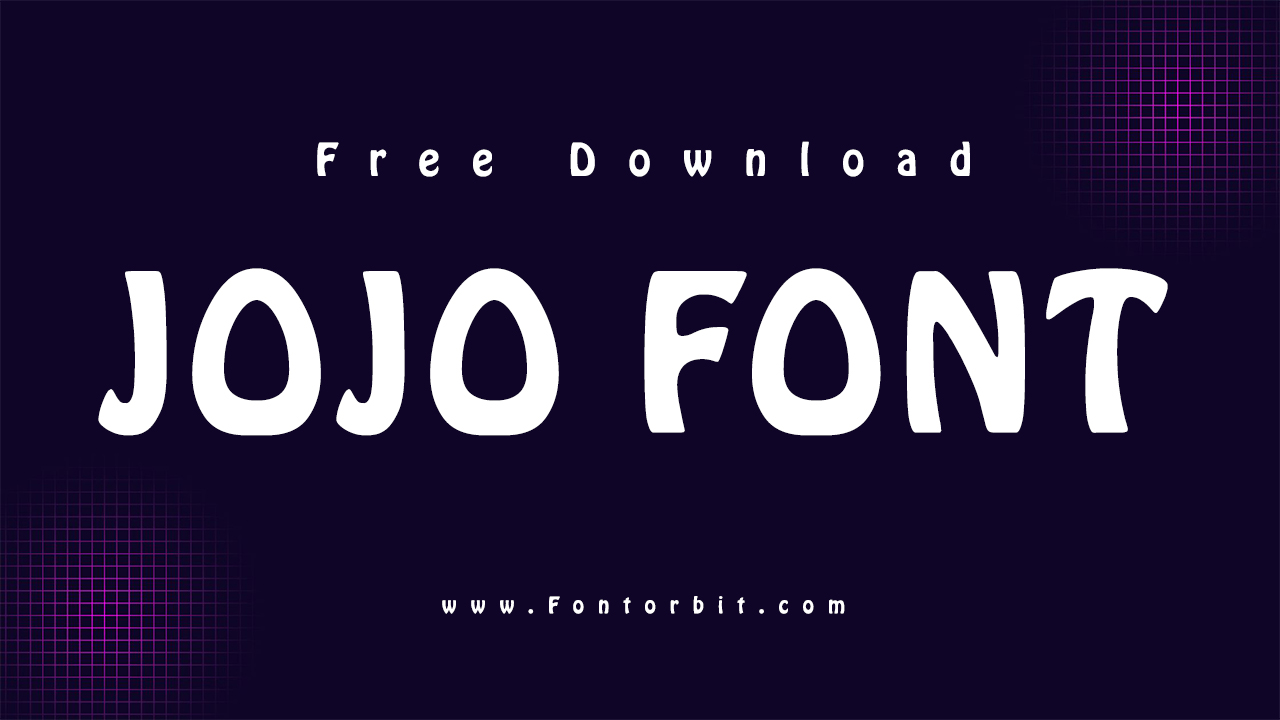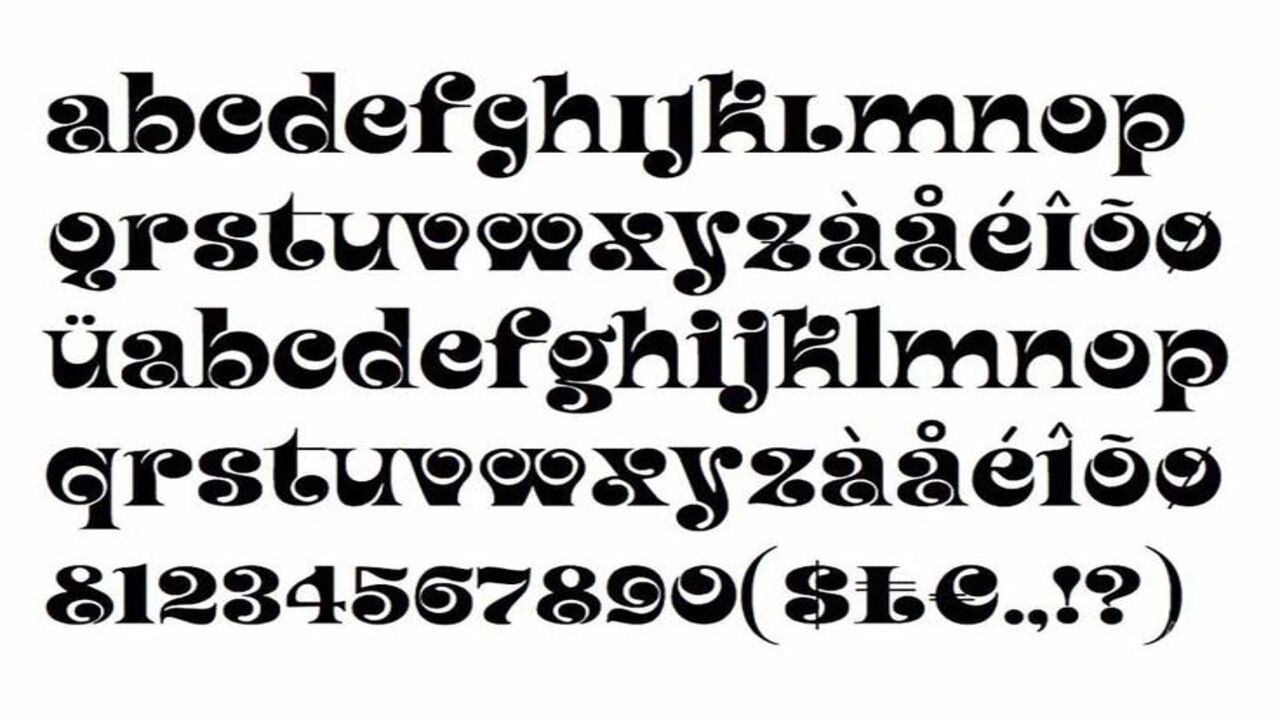
The JoJo Font, inspired by the typography of JoJo’s Bizarre Adventure, was created by Derek Vogelpohl. This font is actually SF Fedora font. A stylish representation of the dynamic and bold design that has become synonymous with the series.
The typeface combines a dramatic blend of bold lines and intricate details, perfectly capturing the essence of the JoJo universe. While the anime and manga use a custom-made font, similar fonts closely match its unique style. These fonts can be downloaded for free for personal use, allowing fans to bring a piece of the JoJo aesthetic into their own creative projects.
The JoJo font (SF Fedora) family blends bold, modern design with an eccentric flair, reflecting the characters’ unique style in the series. It reflects the adventurous and flamboyant style that defines JoJo’s Bizarre Adventure.
The font family typically includes various styles, each emphasizing different aspects of the series’ aesthetic, from the bold and daring to the ornate and detailed. Although finding an exact match for the official JoJo font can be challenging, numerous alternatives capture the spirit of the original design, offering similar visual appeal and character.
Incorporating the JoJo Font into your designs can add a sense of drama and uniqueness, much like the series itself. The font’s dynamic and bold style makes it ideal for headlines, logos, and other prominent text elements that require a strong visual impact. Its versatile nature also makes it suitable for both modern and retro-inspired designs. Here are some creative applications:
The JoJo Font, known for its bold and adventurous style, is commonly used in fan art, themed merchandise, and promotional materials for the series. Its eye-catching design perfectly fits various media, from digital graphics to print publications.
This font style is found in T-shirts, posters, stickers, and other JoJo-themed products. Its appeal extends beyond fans of the series, as its unique look makes it popular for creative projects that require a distinct and memorable typeface.
Try using similar fonts if you can’t find an exact match for the JoJo Font. Similar fonts may offer a bold and dynamic look. These alternatives offer a blend of strong lines and intricate details, perfect for projects that need a look of energy and originality:
The JoJo Font embodies the vibrant and eclectic spirit of JoJo’s Bizarre Adventure. While a replica of the series font might not be available, similar options like Jojomix provide a comparable style for various design needs.
Pairing these fonts with simple sans-serif or classic serif typefaces can create a balanced, striking design that captures the adventurous essence of JoJo’s universe.
2.What Is The Color Palette Used With The Jojo Font?
The JoJo Font pairs well with bold colors like black, white, purple, and gold, reflecting the series’ dramatic and vibrant themes. However, it can adapt to various color palettes based on the design’s requirements.
3.What Kind Of Jojo Font Is It?
JoJo font refers to typefaces inspired by the popular manga and anime series JoJo’s Bizarre Adventure. These fonts often mimic the unique, dramatic style of the manga’s logo and text, characterized by bold, stylized letters that can have a Gothic or Art Nouveau feel, capturing the eccentric and flamboyant aesthetic of the series.